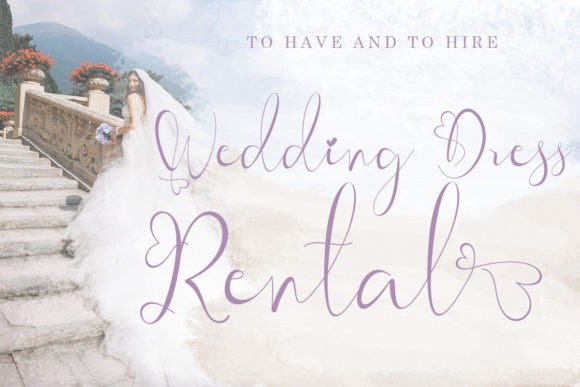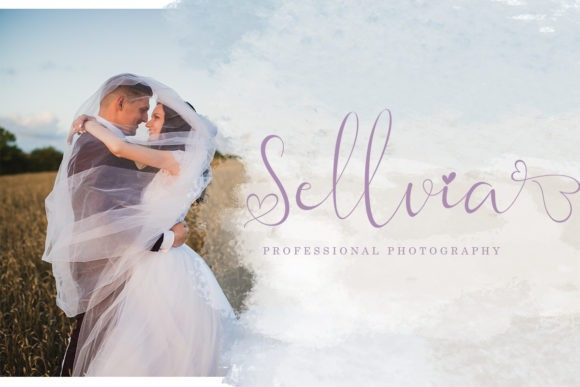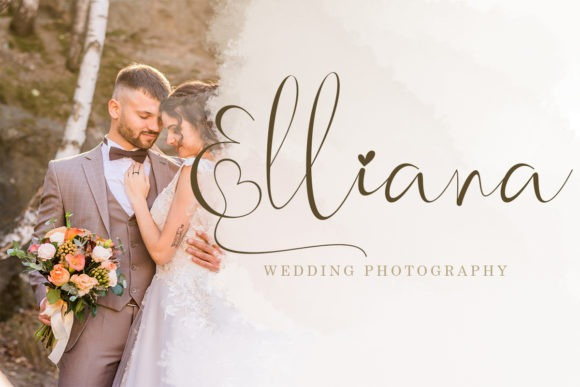
Adellia Calligraphy Font
Adellia Calligraphy Font is made in a modern style with a very beautiful beginning and ending. Made from font designer named yogaletter6. This typeface is a font that is very elegant, beautiful and has a romantic impression. It is suitable for beautifying all types of your work.
This font is very unique and has high quality. It is suitable for wedding designs, branding, invitations, signatures, labels, logos, promotion of your business, creating social media status, quotes and more.